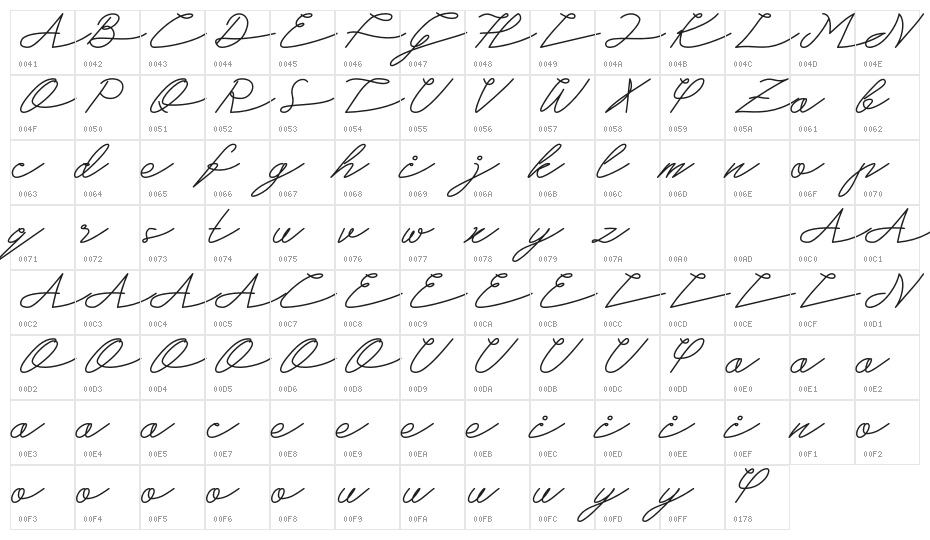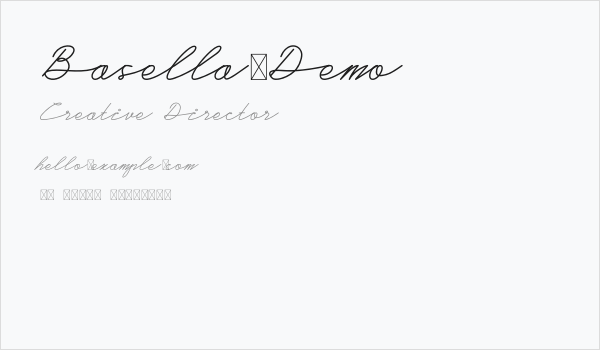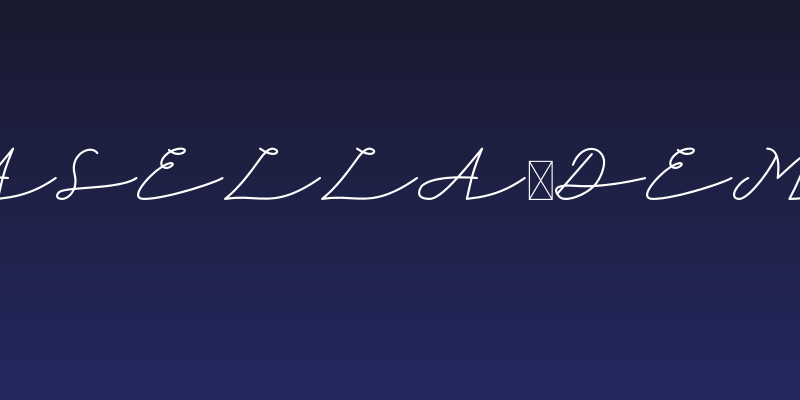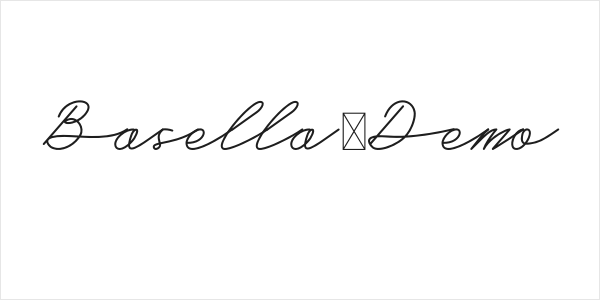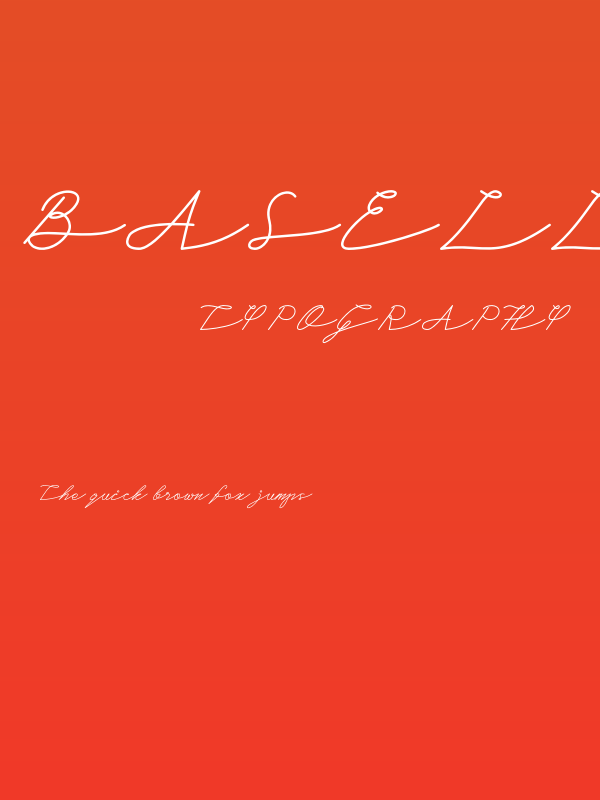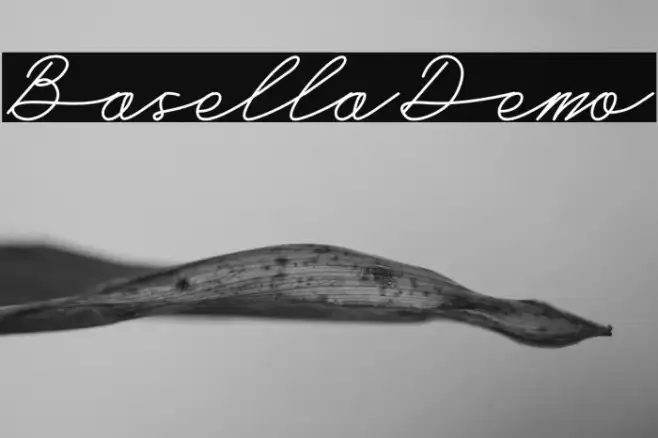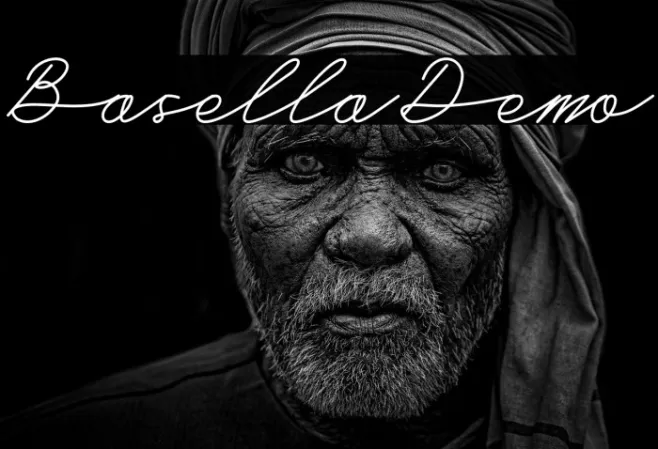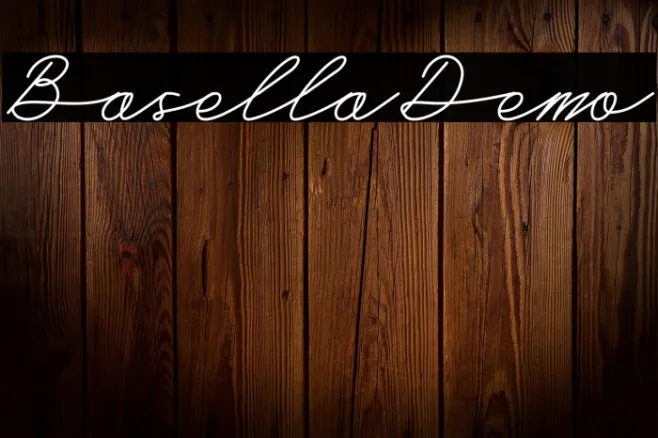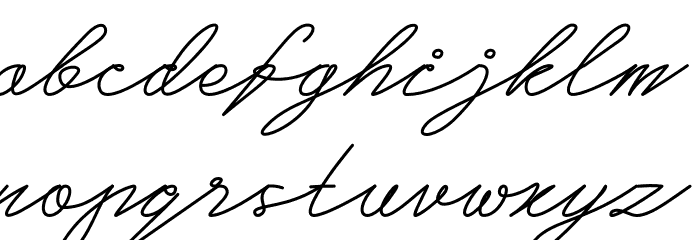
Basella-Demo Font
Basella-Demo Description
This elegant script font features a fluid, cursive style with smooth, flowing lines that create a sense of movement and grace. The uppercase letters are slightly more restrained, maintaining a consistent height and width, while the lowercase letters exhibit a more pronounced slant and flourish, adding a touch of sophistication. The font's thin strokes and delicate curves give it a refined appearance, making it suitable for formal and decorative applications. The absence of bold or italic variations suggests a focus on maintaining its classic script aesthetic.